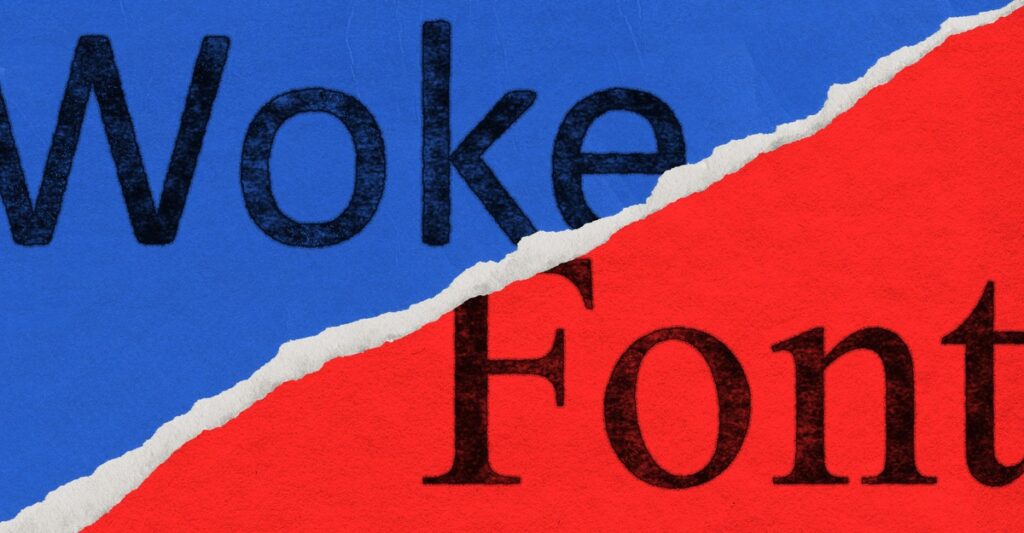
Marco Rubio Has Spoken! Please Remove All of Your Woke Fonts.
Marco Rubio here, with an important announcement: No more Calibri in official State Department communications! Get out of here with your ungarnished lines and provocatively naked terminals! The Biden administration may have shot the serif, switching from Times New Roman on the grounds that serif-less fonts such as Calibri are more accessible to readers with disabilities. That’s all over now. The State Department Action Request reads: “To restore decorum and professionalism to the Department’s written work products and abolish yet another wasteful DEIA [Diversity, Equity, Inclusion, and Accessibility] program, the Department is returning to Times New Roman as its standard typeface.” Now you can read a sentence like “Yes, the United States did just seize an oil tanker off the coast of Venezuela! Don’t worry about it,” and bask in the sense of absolute decorum that comes from seeing a little serif on all of the relevant letters.
Some further updates to our font preferences:
The Justice Department will be switching to Comic Sans because current fonts have a veneer of professionalism that feels out of place in communications written by Lindsey Halligan. Now all “fundamental misstatements of law” (a judge’s words, not ours!) will be in a font where they will feel more at home.
The Department of Transportation is switching to Goudy Old Style to fix everyone’s biggest problem with air travel: pajamasThe fonts aren’t square enough!
It will also be phasing out Clearview on road signs, on the grounds that this typeface is entirely too legible. Legibility is DEIA at work. People should struggle to read. This is also why we are dismantling the Department of Education.
Also, NASA is going to be using the logo font, where the A’s all look like upside-down V’s, for all communications, just to create an extra challenge for its already-overworked scientists. AAAAAA!
The Treasury Department will be switching to Akkadian cuneiform in honor of Ea-Nasir, our Businessman of the Month! The Trump administration shares his values. We are phasing out the penny, but one thing we’re not phasing out? Quality copper! Just buy some! And if you want to complain about it, write to us in Akkadian cuneiform!
The FBI is communicating entirely in Wingdings; this is because Kash Patel clicked something by mistake and is not actually policy.
The Department of Homeland Security is getting rid of Futura and bringing back our medieval gothic blackletter favorites with a switch to Fraktur. “What do you mean, you’re bringing our medieval fonts back? What medieval fonts? What country do you think this is?” Germany, right? 1930s, right? If not, we’re going to be very embarrassed. In general, when selecting a font or making any other kind of design choice, think, Would this look out of place on a Leni Riefenstahl film poster?
The Health and Human Services Department is switching entirely to Papyrus. Finally, a font as embarrassing and unscientific as our ideas. When you read a press release saying that vaccinations are no longer recommended, now it’ll be in a font that looks like it’s advertising tropical-drink specials or chakra alignment.
The Department of Labor will switch to handwriting. Just to create more labor.
The Department of War will not be updating its fonts at this time. Instead, it will be switching from written to verbal communications. This isn’t because we are worried that some of our orders might not be legal. It’s—call and we’ll explain. Just call. Or you can probably reach Pete Hegseth on Signal.